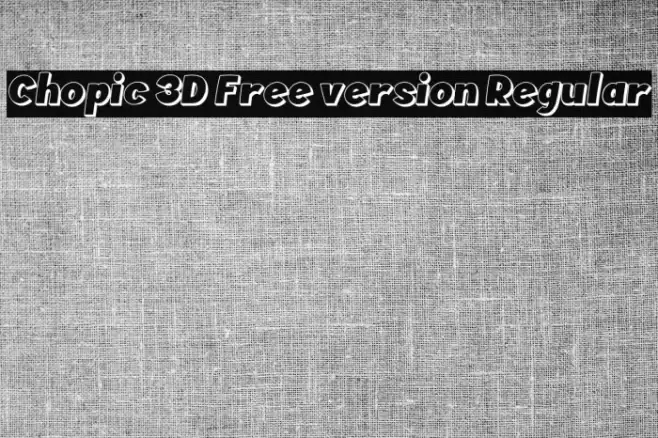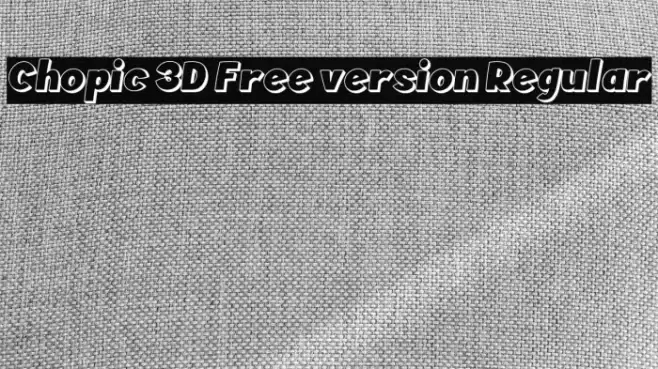
Chopic 3D Free version Regular Font
Chopic 3D Free version Regular Description
This font features a bold, three-dimensional style with a playful and dynamic appearance. The letters are thick and have a shadow effect that gives them a lifted look, making them stand out prominently. The uppercase and lowercase characters maintain a consistent style, with rounded edges and a slightly condensed form. The numerals and special characters follow the same design principles, ensuring uniformity across all glyphs. This font is ideal for creating eye-catching headlines or titles that require a sense of depth and impact.
A bold, 3D font with a playful, dynamic style and shadow effect from Uncategorized fonts.
- Proposed Projects: Ideal for posters, logos, video game titles, and children's book covers.
- Width: Condensed